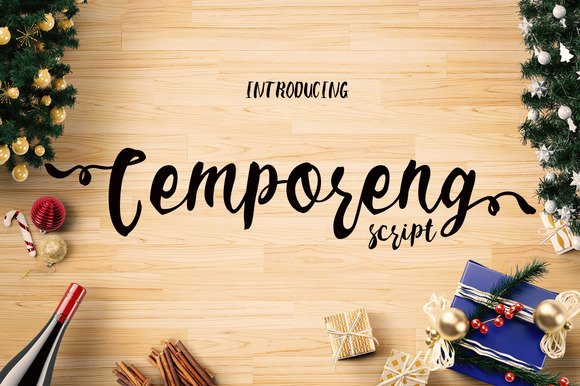
The Art of Whimsy: Discovering the Cemporeng Script Font
There’s something magical about the moment when a design comes together – the perfect balance of color, texture, and typography. For designers, it’s a thrill that never gets old. And when the right font is used, it can elevate a design from ordinary to extraordinary. That’s where the Cemporeng Script Font comes in – a delightful, hand-crafted script font that adds a touch of whimsy to any project.
This beautiful font features a selection of playful end-swashes, making it perfect for creating eye-catching headlines, titles, and other design elements. With its OpenType features, designers can access a range of alternative characters, including Stylistic Sets, Contextual Alternates, and Ligatures. Whether you’re working on a branding project or a creative campaign, the Cemporeng Script Font is a valuable addition to your design toolkit.
Cemporeng Script Font Key Features
- Font Style: Script, elegant and cursive, ideal for creative and artistic projects.
- Unique Characteristics: Features a beautiful, flowing design with intricate details, making it perfect for titles, headings, and other decorative text elements.
Cemporeng Script Font Review
Cemporeng Script is a beautiful, elegant font that can elevate any design project. ✨ Its intricate details and flowing lines make it perfect for creating a sophisticated, high-end look. ✨ I particularly love how it works well in headings and titles, adding a touch of luxury and refinement.
- Unique design: Cemporeng Script has a distinctive, handwritten feel that sets it apart from other fonts.
However, there are a few limitations to consider: ⚠️ The font may not be as legible in small sizes or when used extensively in body text. Additionally, the weight and spacing may require some fine-tuning to achieve the desired effect.
Overall, I’m impressed with Cemporeng Script’s unique design and versatility. While it may have some limitations, it’s a great choice for designers looking to add a touch of elegance and sophistication to their projects.
Getting the Most Out of Cemporeng Script Font
For the best results, use the Cemporeng Script Font in conjunction with other elegant and minimalist design elements.
Experiment with different font sizes, colors, and combinations to create a unique and visually appealing design.
The Cemporeng Script Font is ideal for:
Stationery and greeting cards